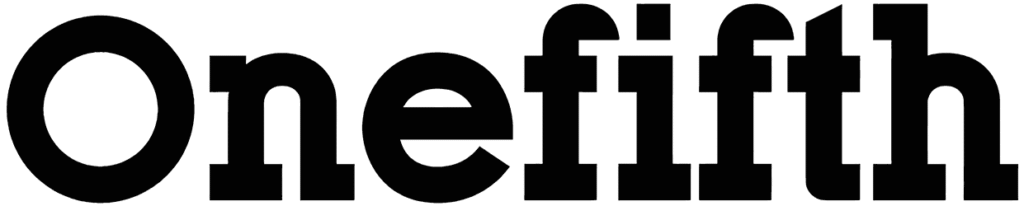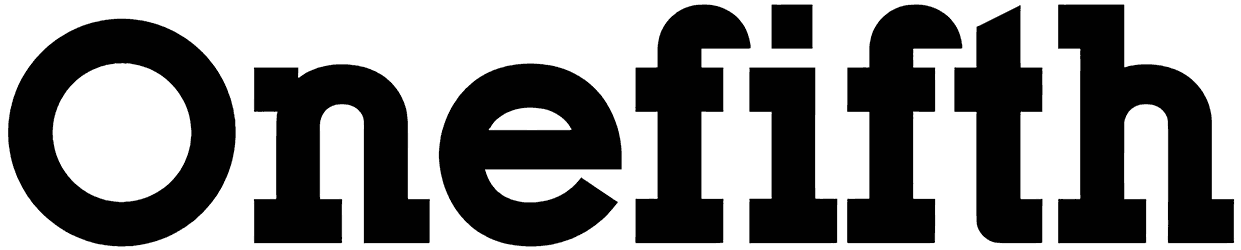
Onefifth Font
Designed byEkke
When you need to impress a lot of viewers with different tastes, using a modest letterform like this one will be a smart choice. This slab serif font consists of A-Z characters in a bold and humble mood. You can set Onefifth font on your intended design, such as a manager’s business card, an old movie poster, or so on, and surprise your visitors.
Just wanted to create a font that’s bolder than Rockwell. Based on five squares.